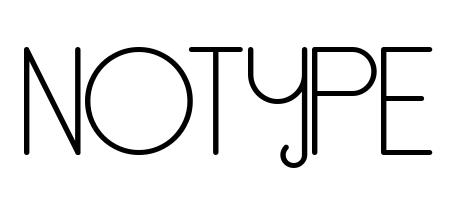
NoType
NoType: A minimalist sans-serif font, NoType exudes understated elegance. Its clean lines and subtle curves create a feeling of refined simplicity. Perfectly balanced, it’s versatile enough for both headline and body text, lending sophistication to any project. NoType is the epitome of less-is-more design.